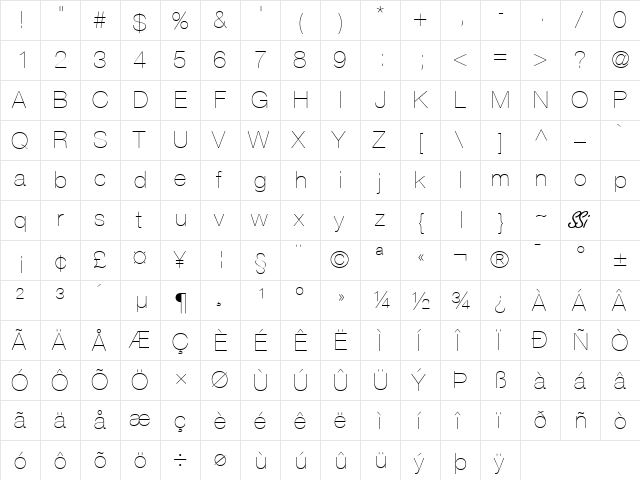
Context Reprise Light SSi Extra Light
Design Context for Context Reprise Light SSi Typeface
Context Reprise Light SSi takes a measured approach to typography — its balanced proportions and neutral character make it a reliable workhorse for both digital and print work. Its slender proportions lend an understated elegance to any composition.